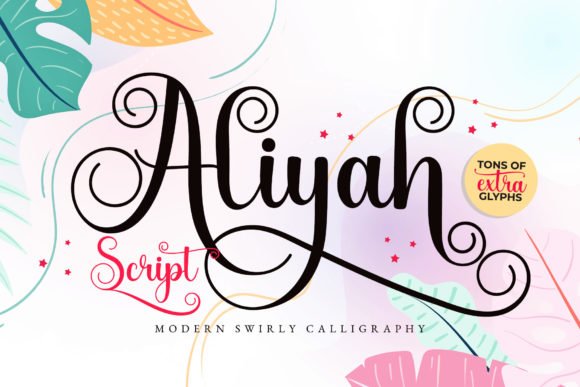
The Perfect Script Font for Your Next Creative Project
Have you ever stumbled upon a font that instantly sparks inspiration and makes you want to create something beautiful? For many designers, this moment comes when they discover the Aliyah Script Font. Its thin, elegant lines and flowing curves make it the perfect choice for a wide range of creative projects.
Whether you’re planning a wedding, designing a new brand, or simply want to add a touch of sophistication to your social media posts, the Aliyah Script Font is an excellent choice. Its versatility and PUA encoding make it easy to access and customize all its glyphs and swashes, giving you endless possibilities to express your creativity.
Aliyah Script Font Key Features
- Character Set: Aliyah Script font contains a wide range of characters, including uppercase and lowercase letters, numbers, and punctuation marks, making it suitable for both personal and professional use.
- Unique Characteristics: The font features beautiful, flowing connections between letters, giving it a unique and elegant appearance. It is perfect for use in wedding invitations, branding, and other creative projects where a touch of sophistication is required.
Aliyah Script Font Review
Overall, I think Aliyah Script Font is a beautiful, elegant script font that works well for creative projects. ✨ It has a whimsical feel to it, making it perfect for titles, quotes, and other design elements where a touch of personality is needed. The font’s flowing connections between letters make it visually appealing and easy to read.
- Unique aesthetic: Aliyah Script Font has a distinct style that sets it apart from other script fonts.
- Highly legible: The font’s flowing connections make it easy to read, even at smaller font sizes.
- Wide range of applications: Aliyah Script Font can be used for a variety of projects, from invitations and wedding stationery to book titles and social media graphics.
That being said, I do have a few concerns. ⚠️ The font’s high level of decoration can make it difficult to pair with other fonts, and it may not be the best choice for projects where a more neutral or minimalist aesthetic is desired. Additionally, the font’s connections between letters can be quite tight, which may make it challenging to read for those with visual impairments.
Overall, I think Aliyah Script Font is a great choice for designers looking for a unique and elegant script font. While it may have some limitations, its beauty and versatility make it a valuable addition to any design toolbox.
For a more professional look, use the Aliyah Script font for headings and pair it with a clean sans-serif font for body text.
For a creative look, use the Aliyah Script font as a text overlay or a title with a subtle drop shadow effect.
For a elegant look, use the Aliyah Script font for headings and pair it with a clean sans-serif font for body text.
Use the Aliyah Script font for:
- Birth announcements and baby shower invitations.
- Event titles and headings.
- Personalized gifts and stationery.
Remember to use the Aliyah Script font in moderation to avoid overwhelming your design. Balance it with clean and simple elements to create a visually appealing
Q: Does the Aliyah Script Font include any special features or support for languages other than English?
Yes, the Aliyah Script Font includes support for multiple languages, including Arabic, Hebrew, and Latin scripts. The font also includes advanced features such as ligatures, swashes, and contextual alternates, making it perfect for creating beautiful, professional-looking designs that require multiple languages. For more information on language support and special features, please visit the font’s official website.